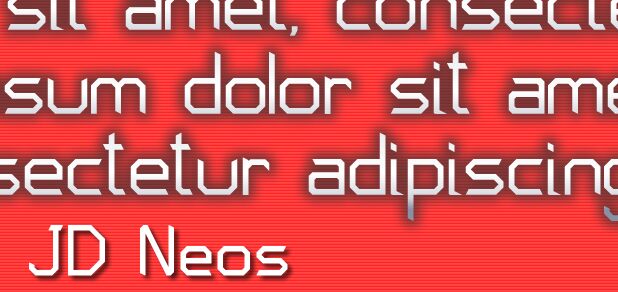
JD Neos by Jecko Development is a free techno display font with lean, angular strokes and a distinctly engineered silhouette. Rounded letters use clipped corners and octagonal curves, with open joins and abrupt cuts that keep the forms light rather than mechanical and dense.
A science fiction game interface is its strongest setting, where the angular lettering suggests controls and navigation. It also suits electronic music posters and gadget packaging. Across these uses, the sharp geometry can become a recognizable brand device, echoing circuit paths and fabricated components.